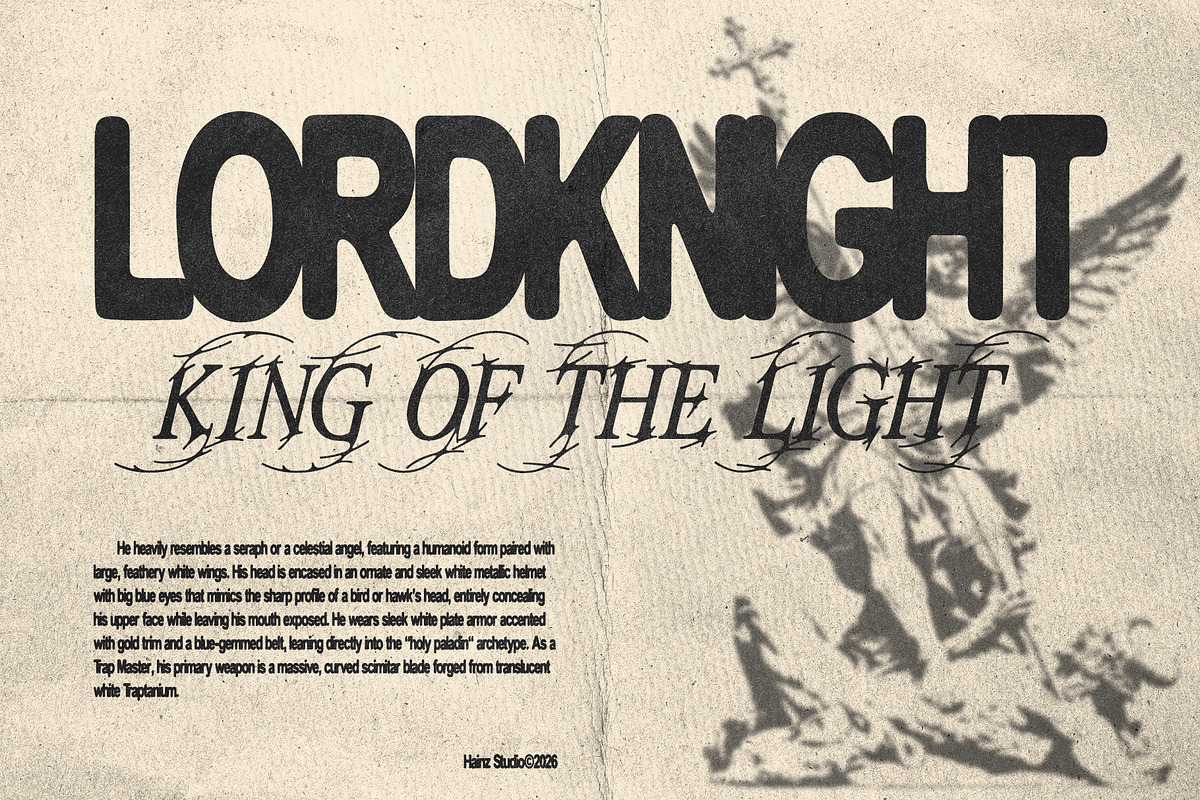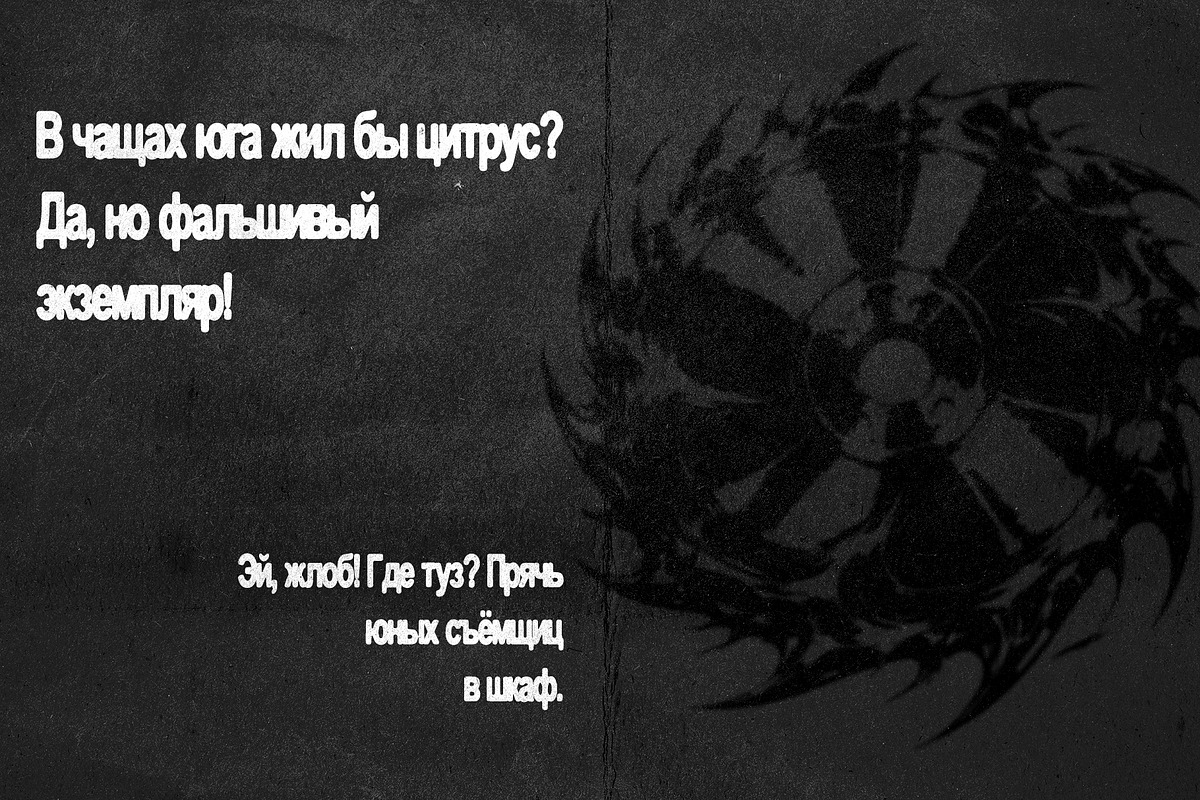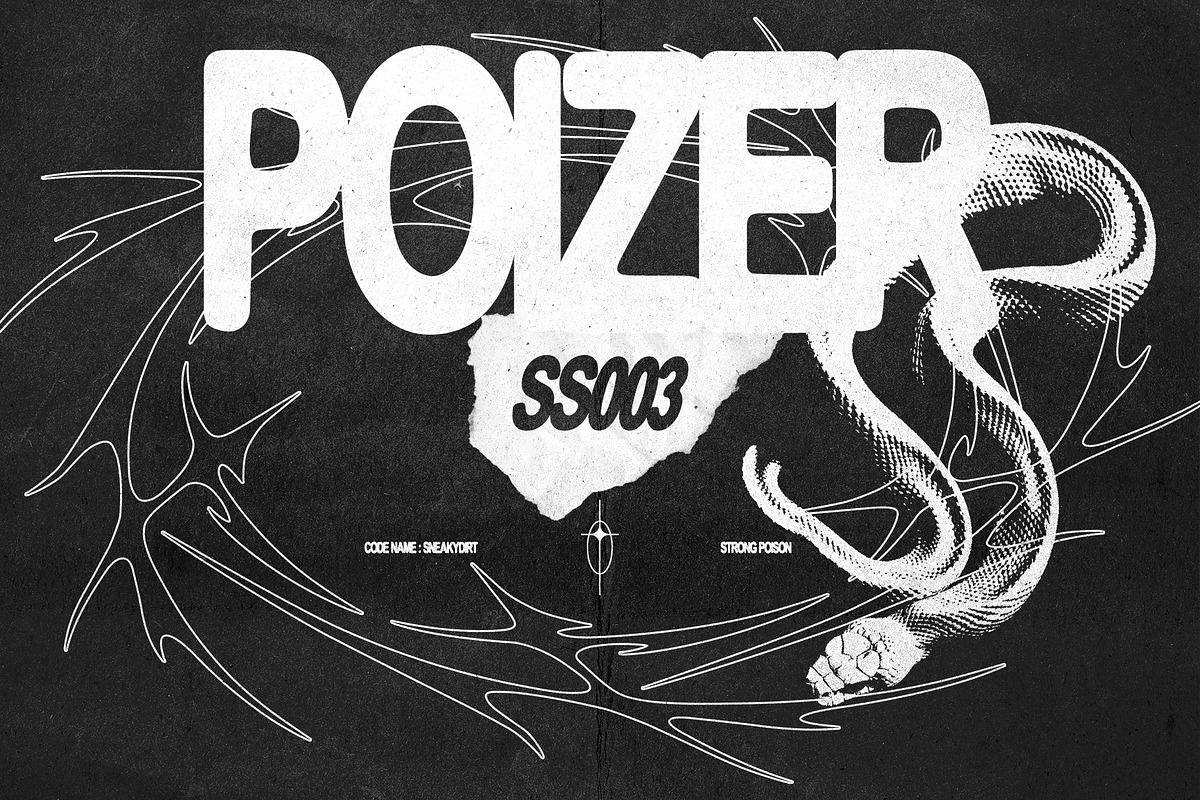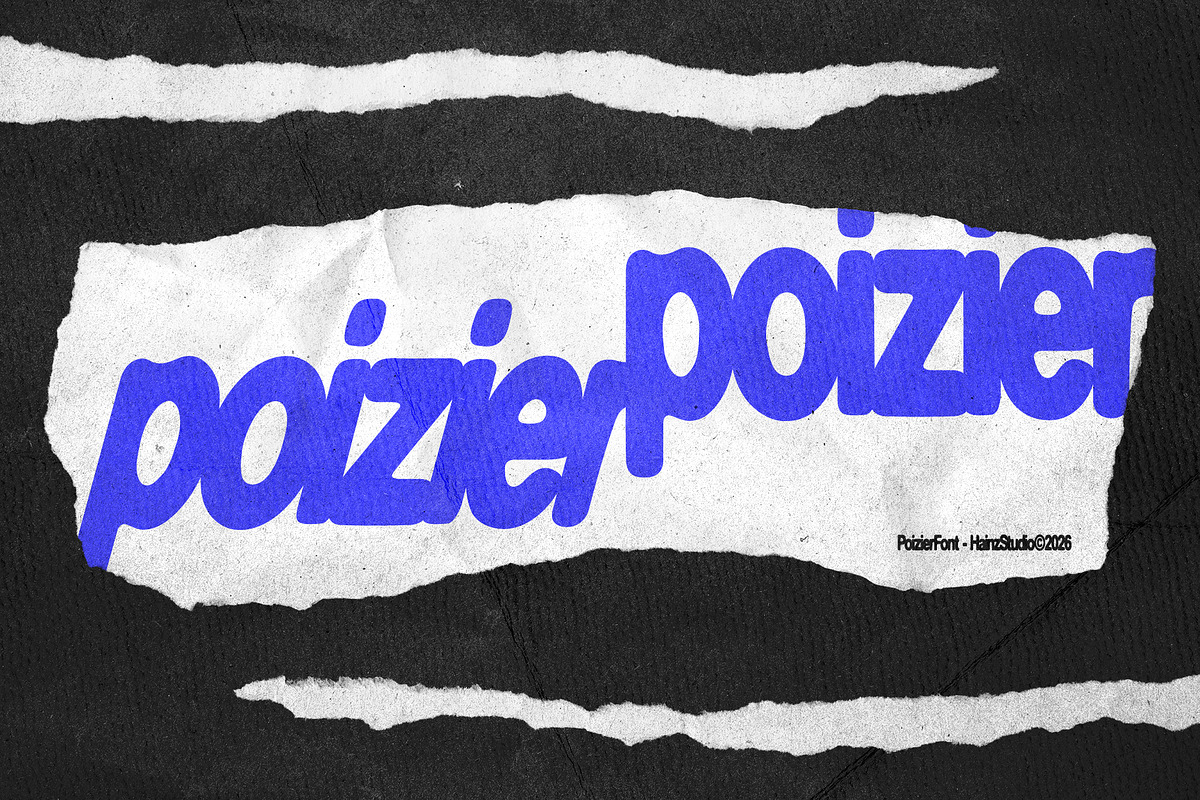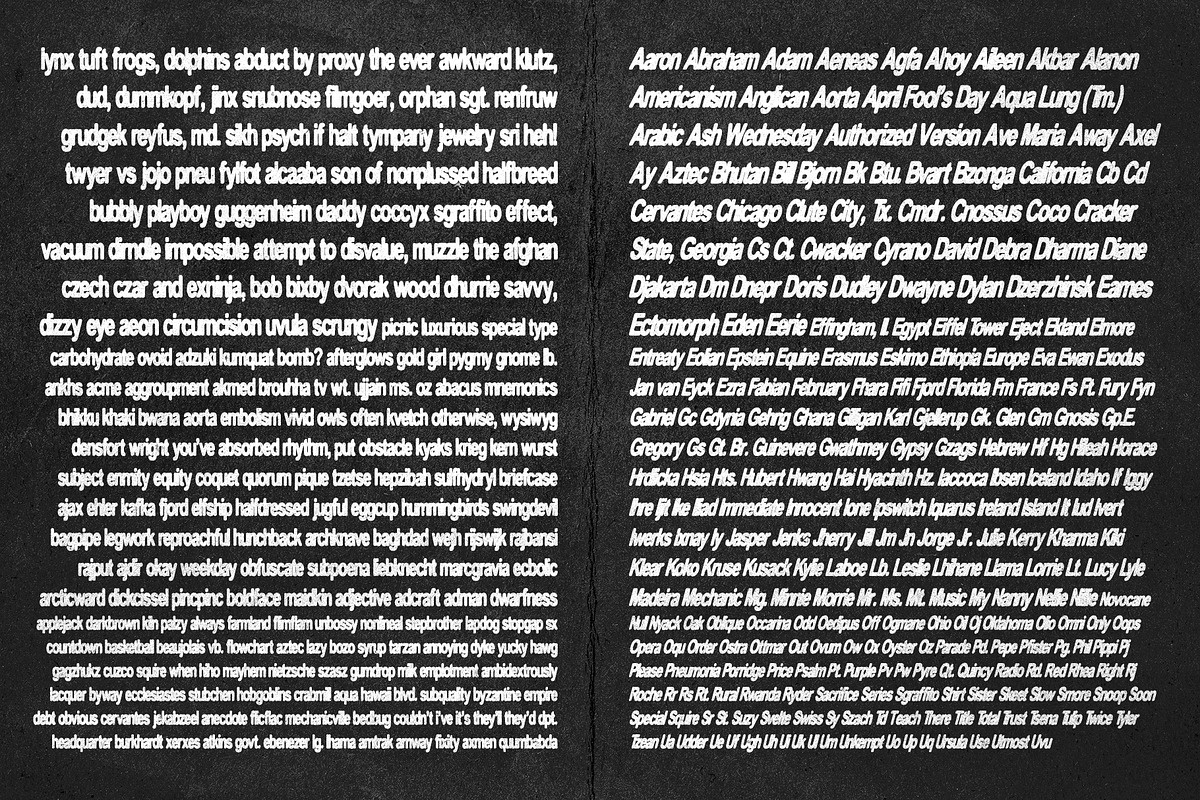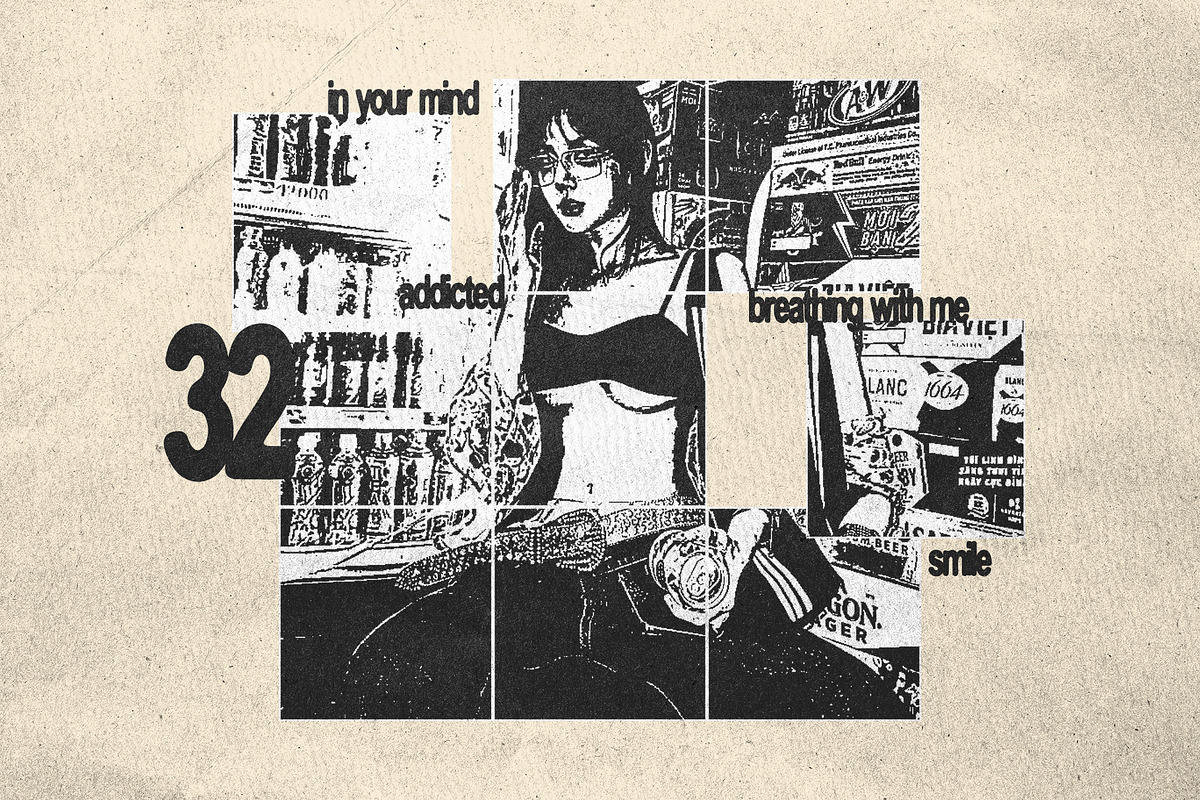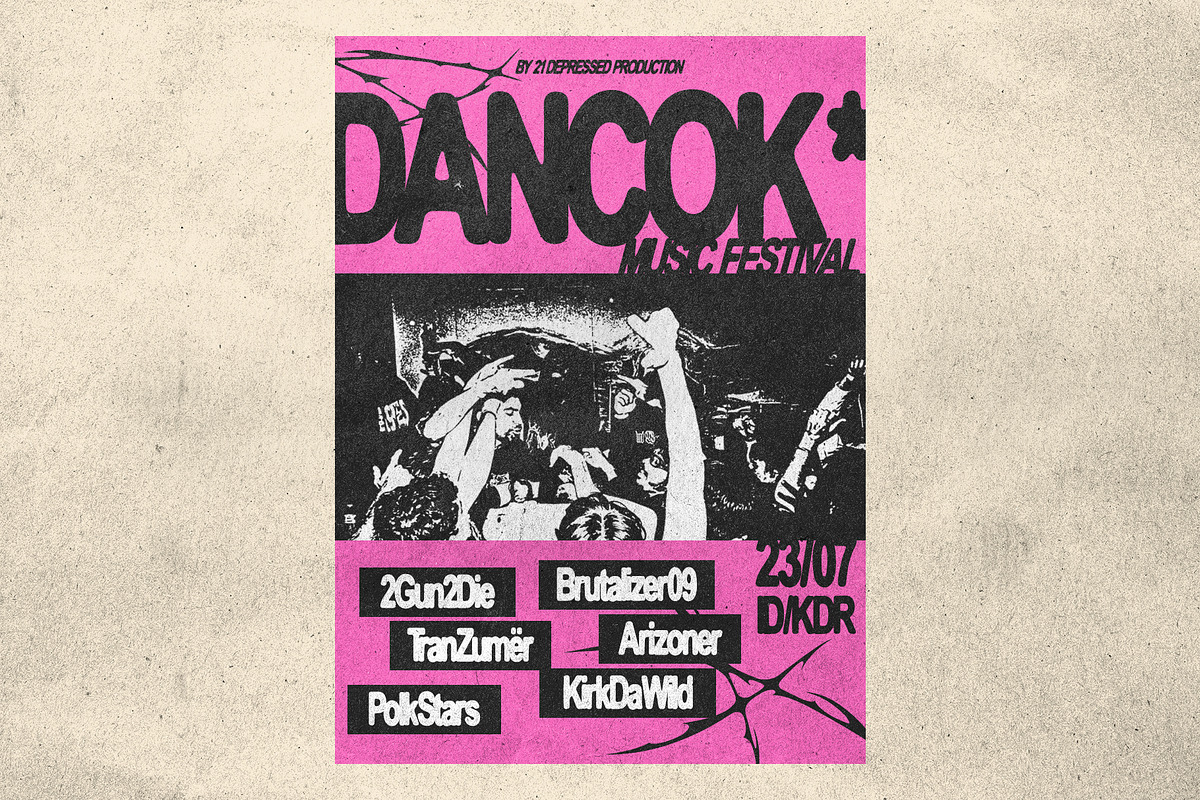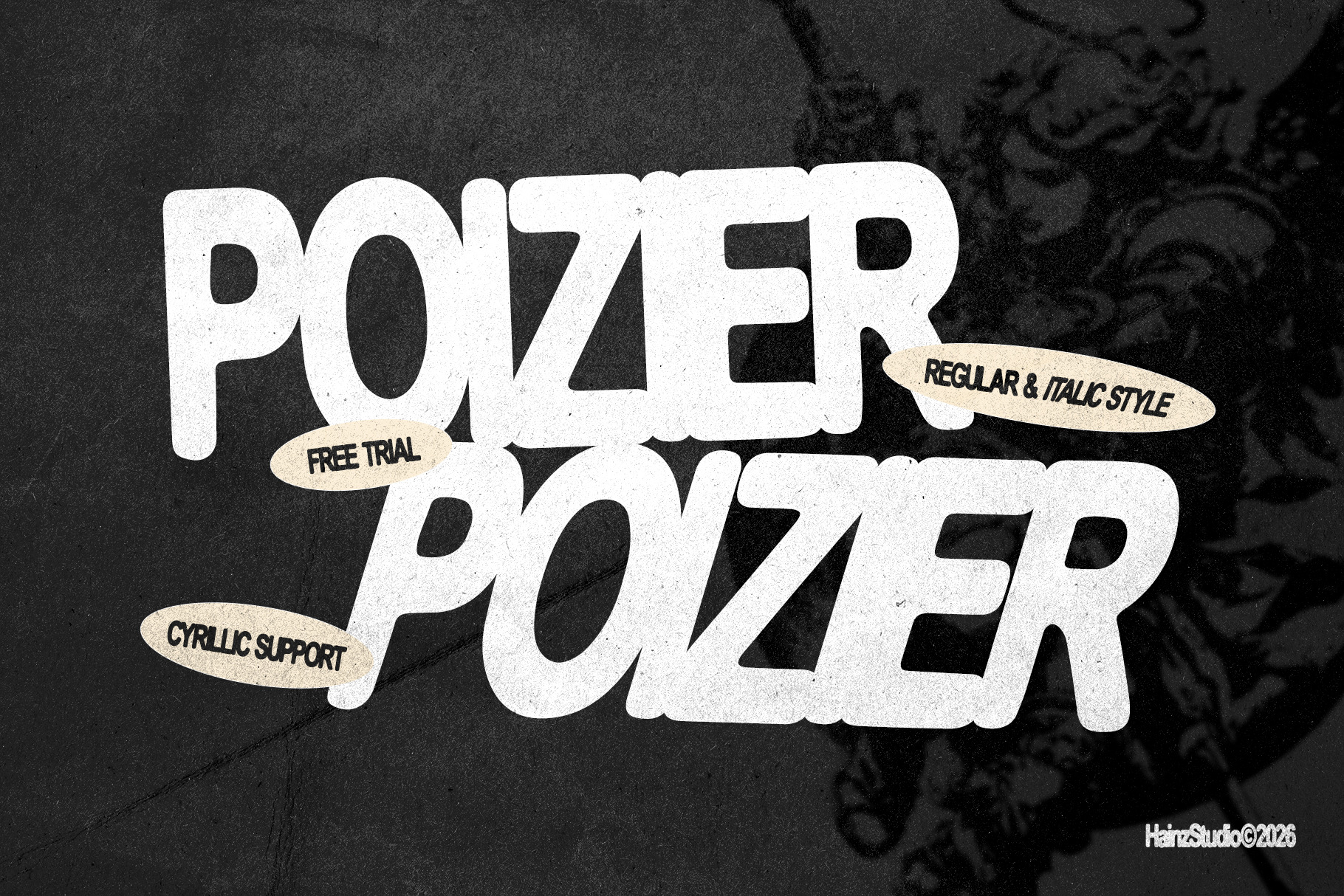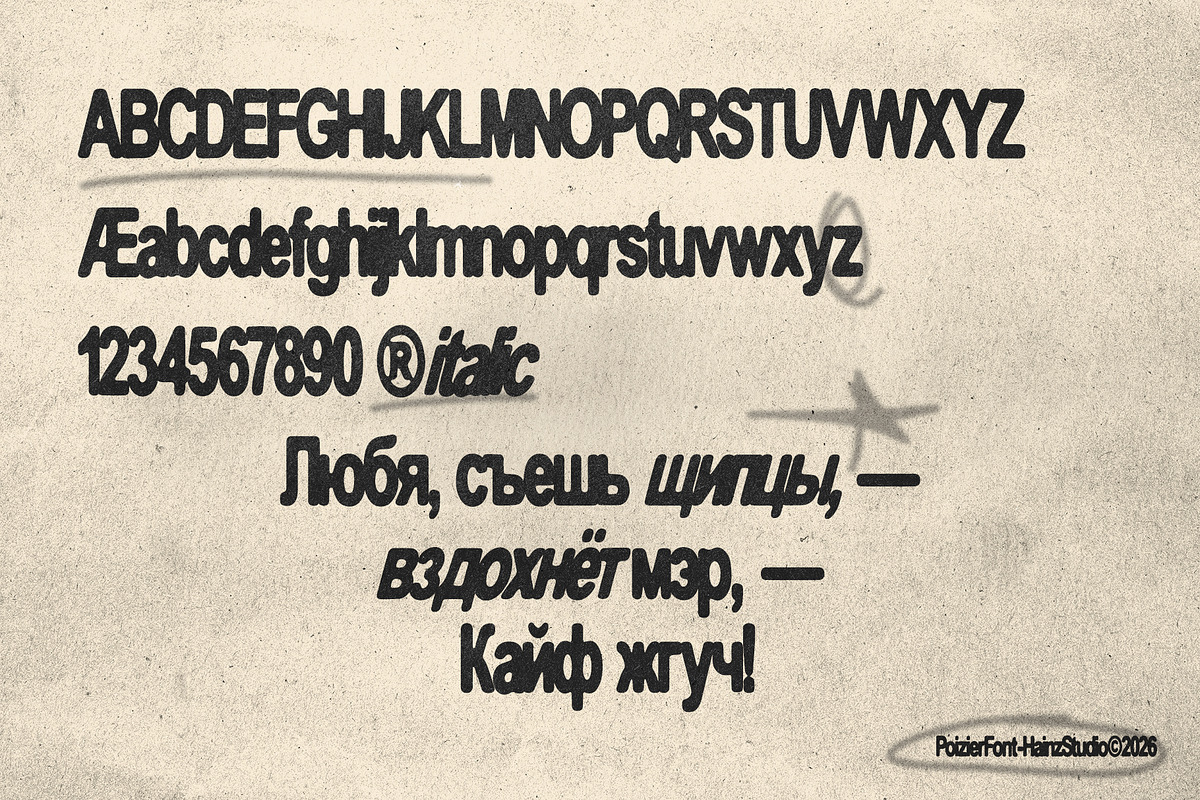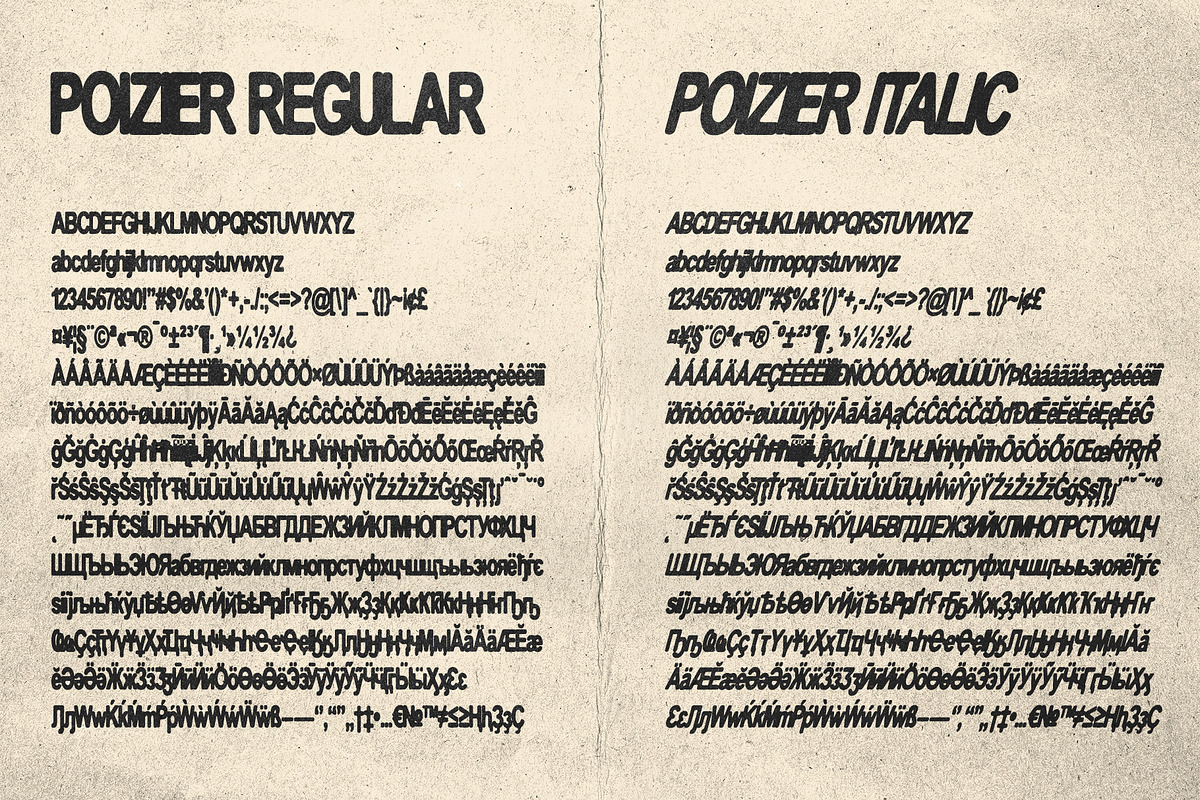
Poizier – Display Font
Break the rules and make your designs impossible to ignore with Poizier, a bold grunge display font crafted for creatives who embrace raw expression and fearless typography. Featuring chunky letterforms with distressed details, Poizier delivers an authentic street-inspired aesthetic while maintaining excellent readability.
Designed to stand out, Poizier is perfect for posters, album artwork, streetwear branding, skate culture, music merchandise, YouTube thumbnails, social media graphics, logos, packaging, and editorial headlines. Its handcrafted imperfections give every design a bold, underground personality that instantly captures attention.
Poizier comes with a complete character set, including uppercase, lowercase, numbers, punctuation, Cyrillic support, and an italic style—making it a versatile choice for designers creating projects for international audiences.
🌐Perfect For:
Posters & Flyers
Album Covers
Streetwear Branding
Logos & Visual Identity & Etc.
🌐Features:
Cyrillic Support
Italic Style
Whether you're building a rebellious brand, creating eye-catching merchandise, or designing impactful headlines, Poizier brings bold energy and authentic grunge character to every project. Make your typography loud, expressive, and unforgettable with Poizier.